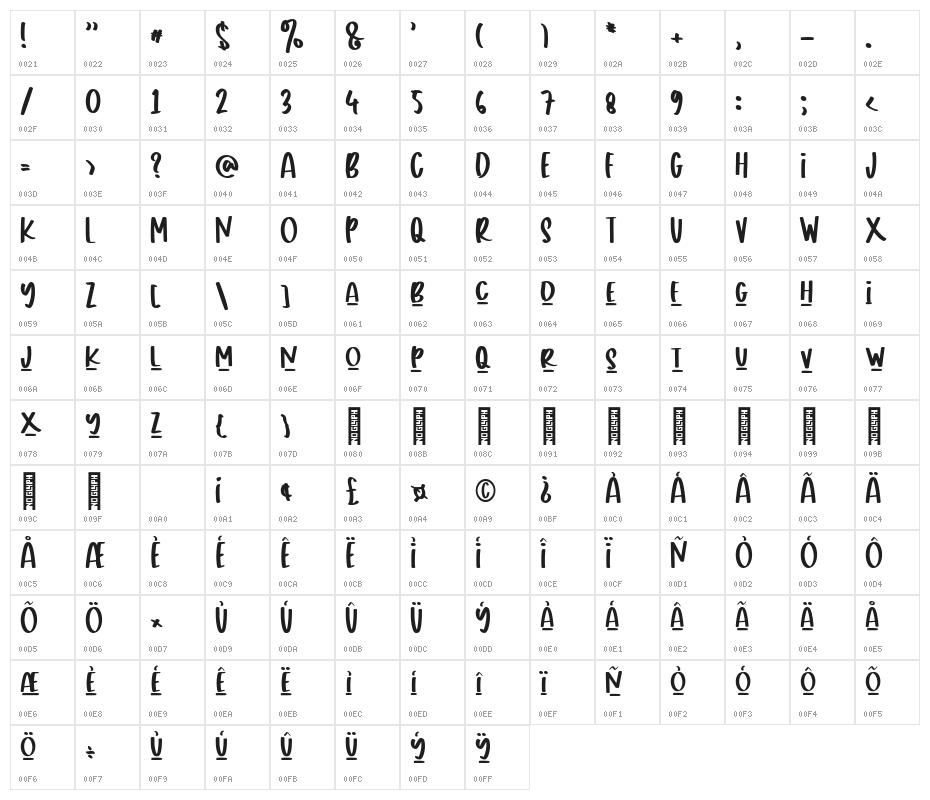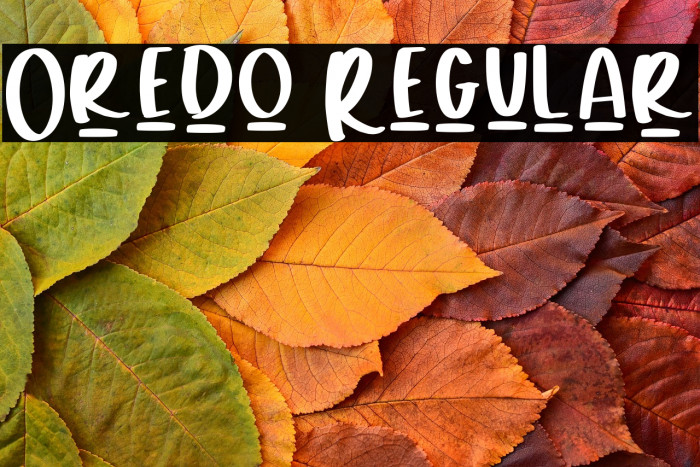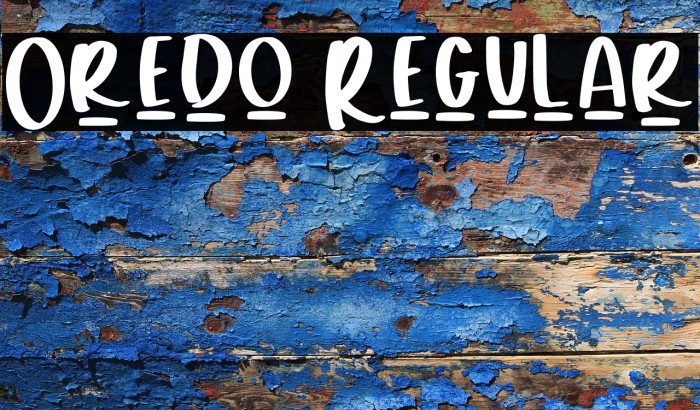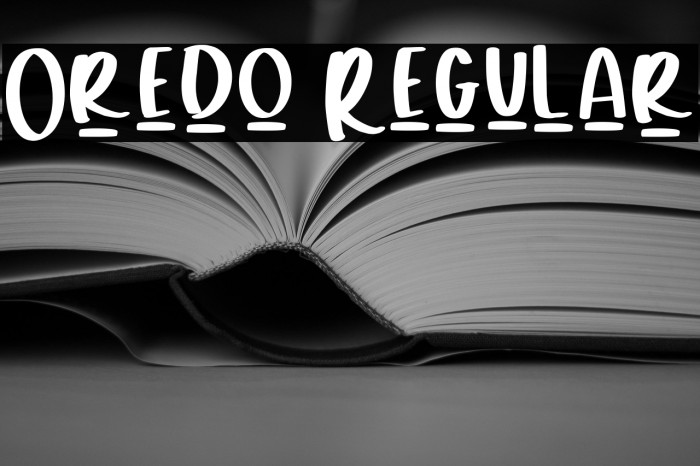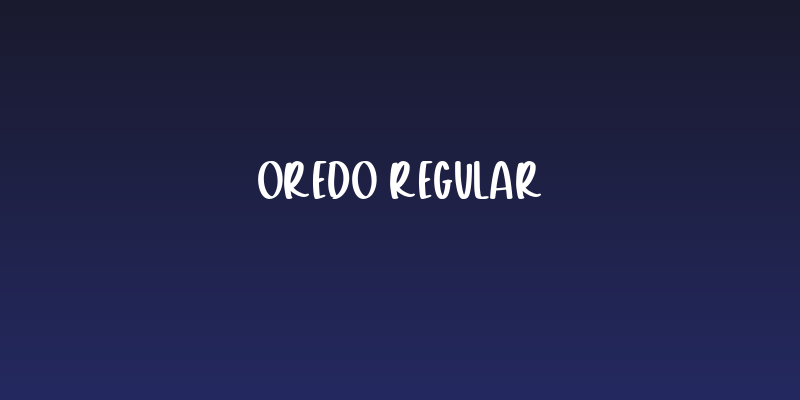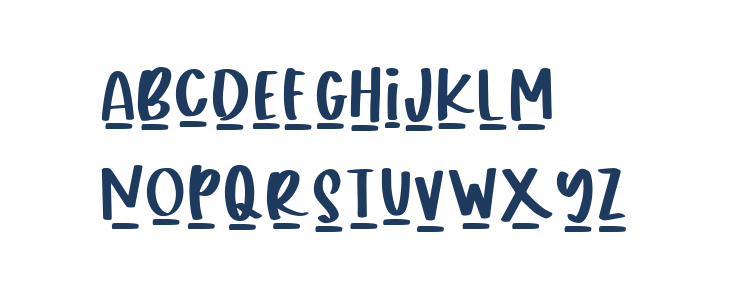
Oredo Regular Font
Oredo Regular Description
This font features a playful and bold handwritten style, characterized by its thick strokes and rounded edges. The uppercase and lowercase letters maintain a consistent height, giving it a uniform appearance. The numerals are equally bold, with a slightly whimsical touch that complements the overall design. Special characters are crafted with the same boldness, ensuring they stand out. This font exudes a casual and friendly vibe, making it ideal for projects that require a personal touch. Its legibility is enhanced by the clear distinction between each character, despite the boldness of the strokes.
| Overall Style | Playful |
| Use Case | Logos, Headlines, Posters |
| Proposed Projects | Ideal for greeting cards, children's books, playful branding, and social media graphics. |